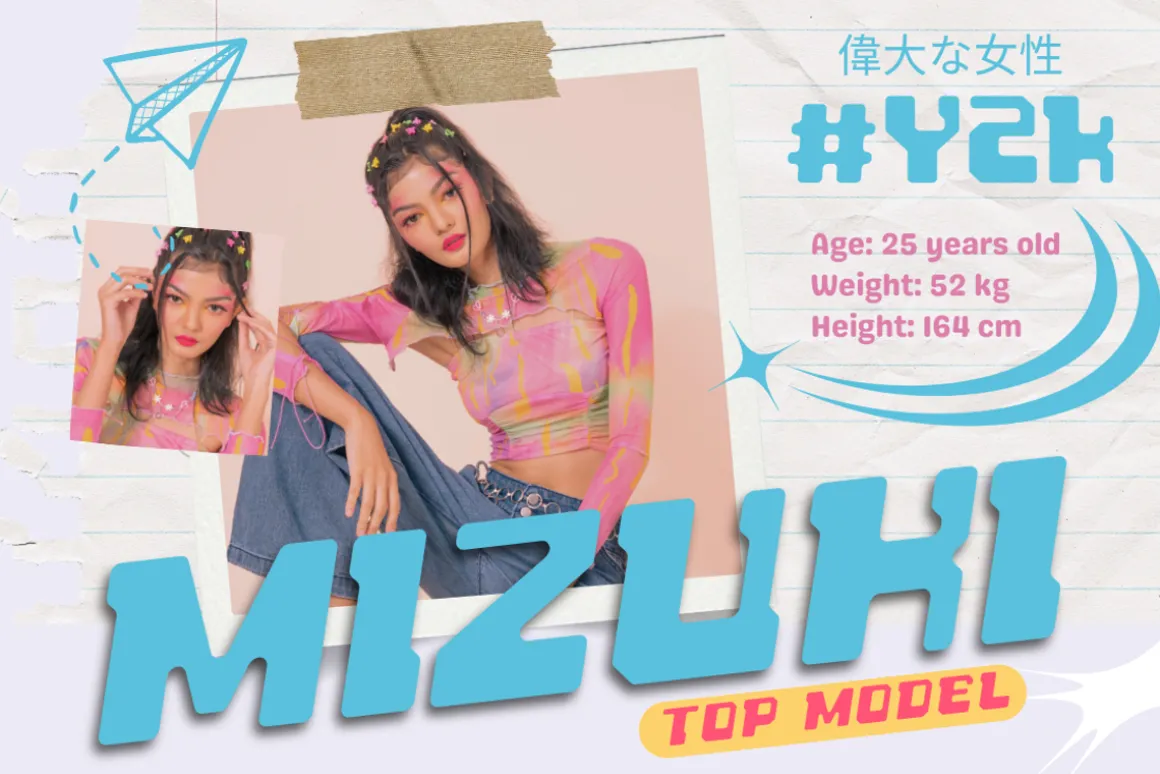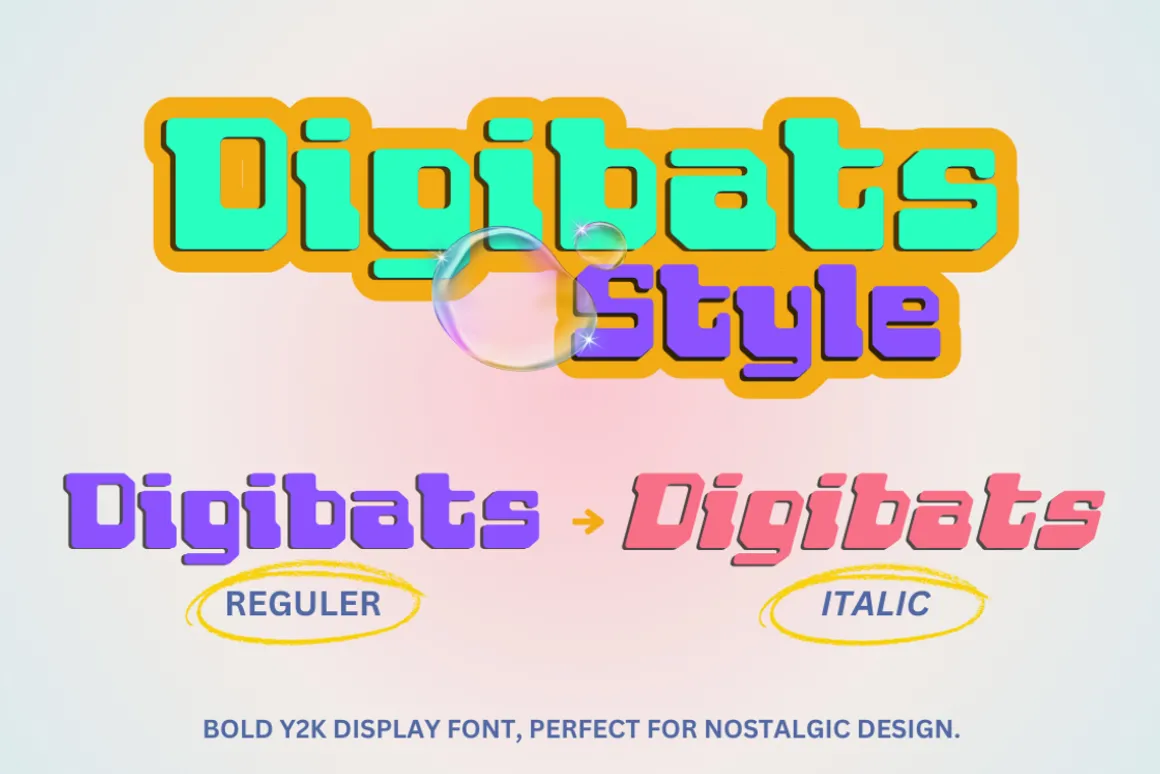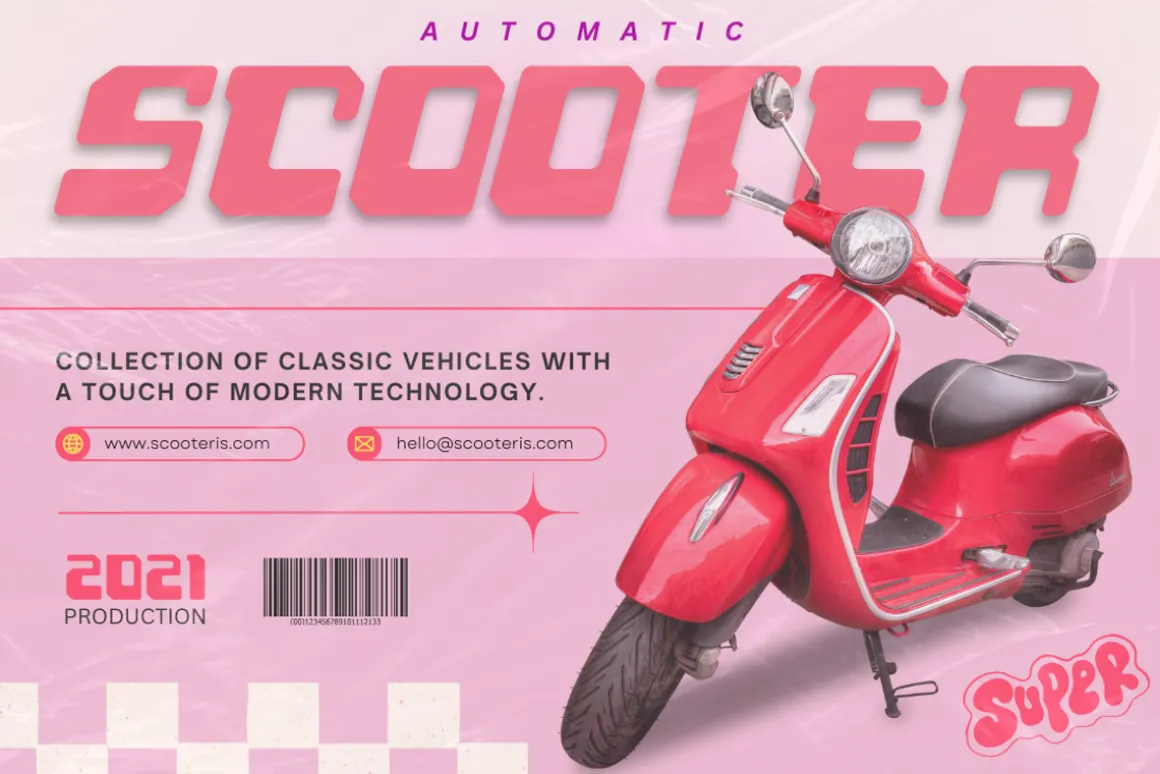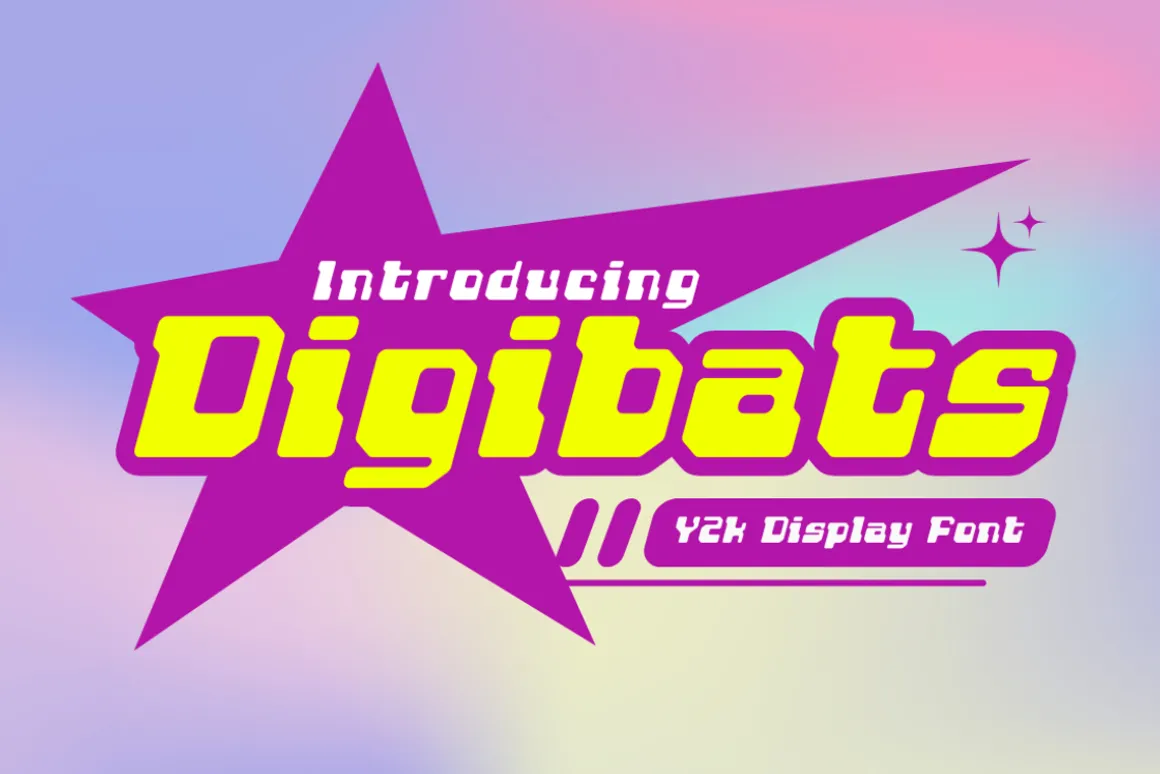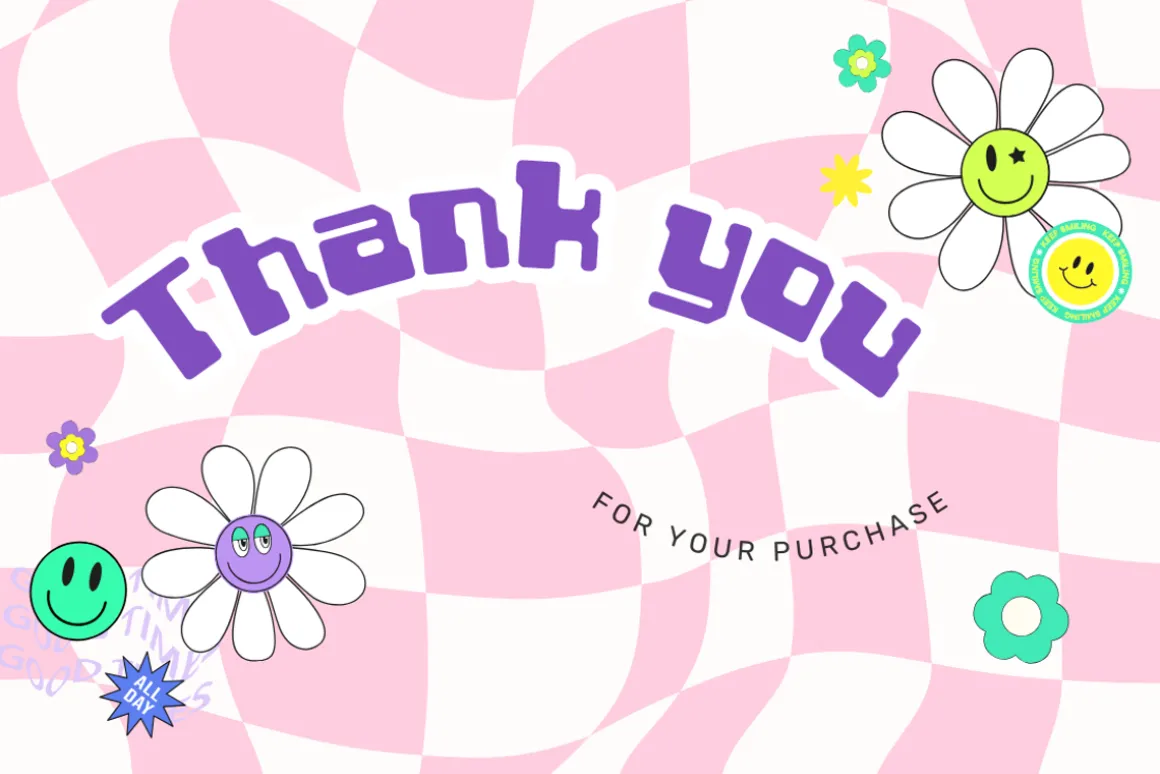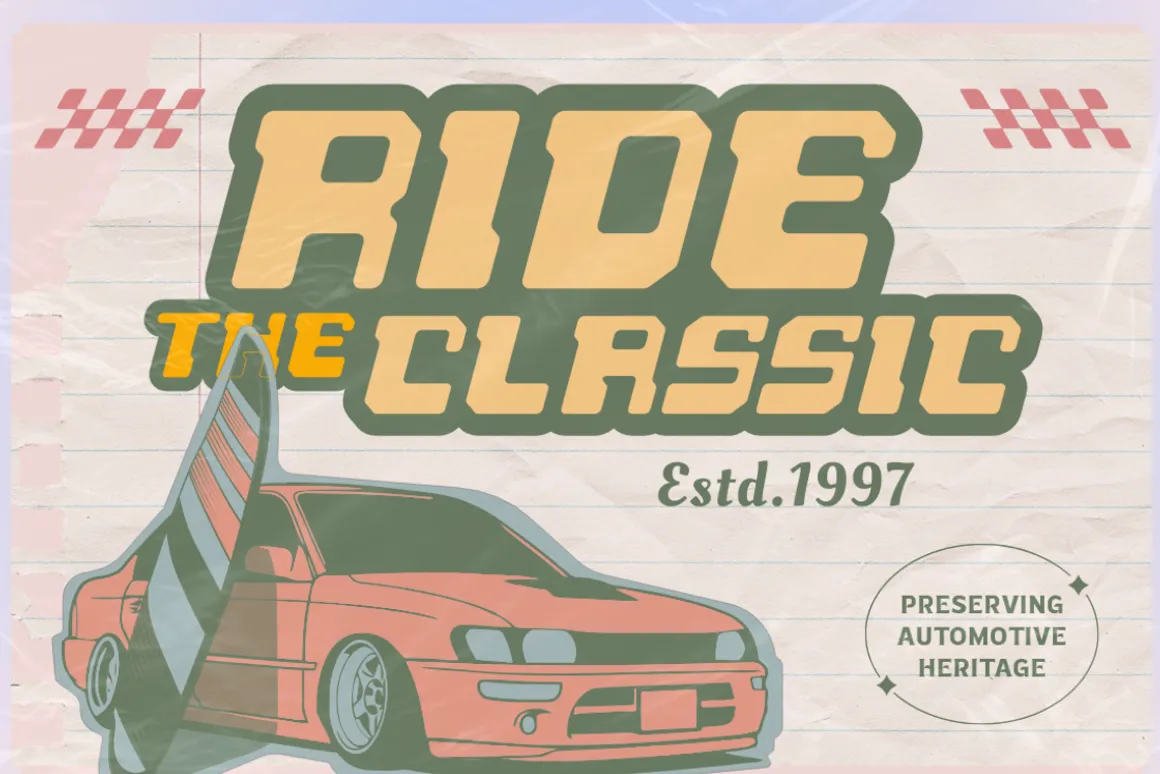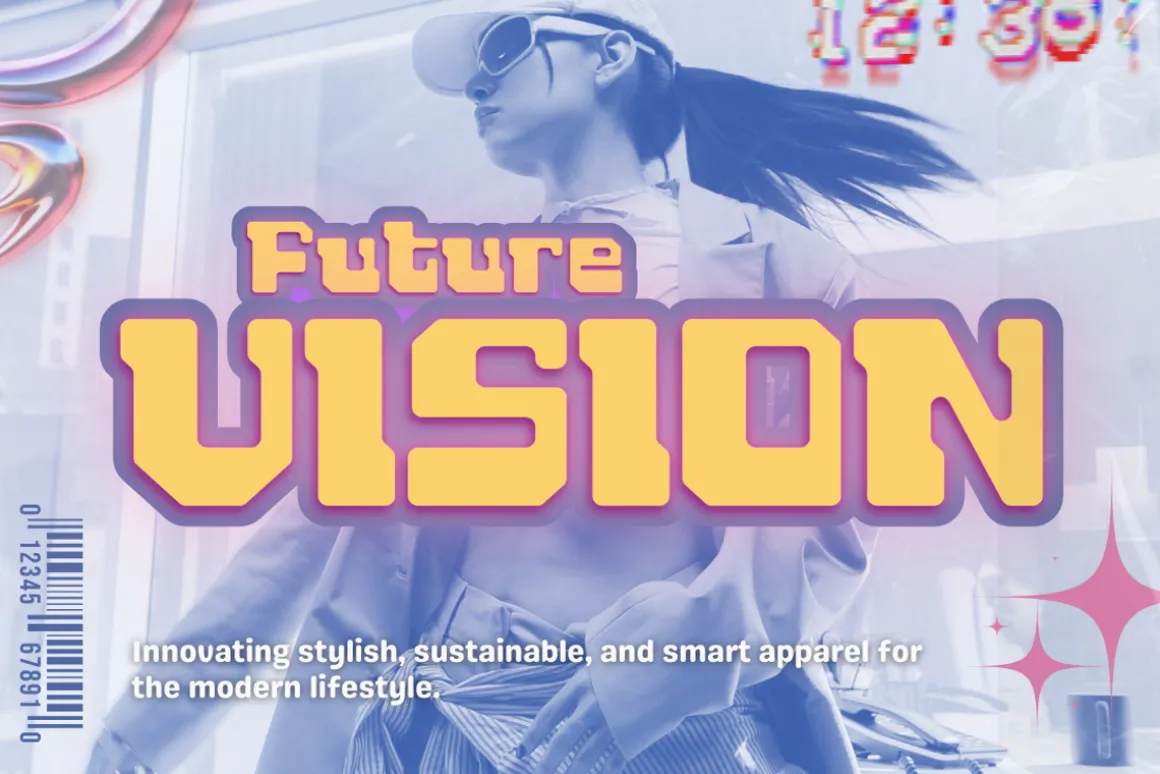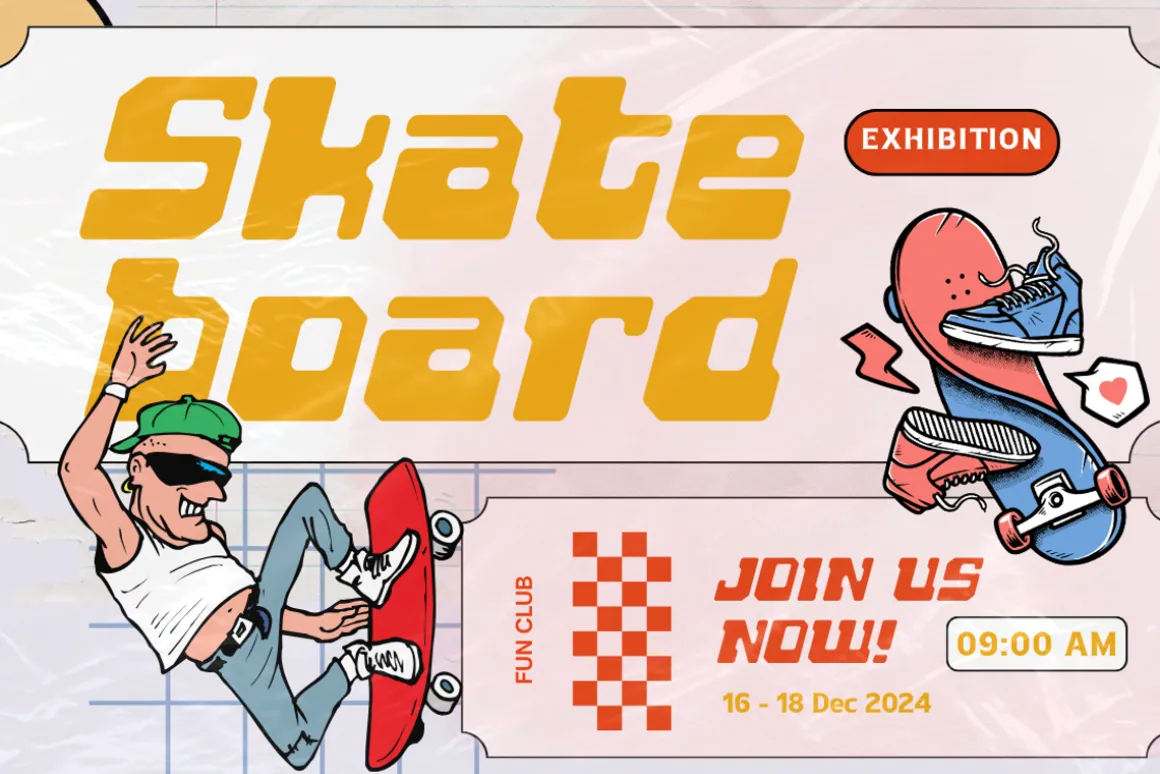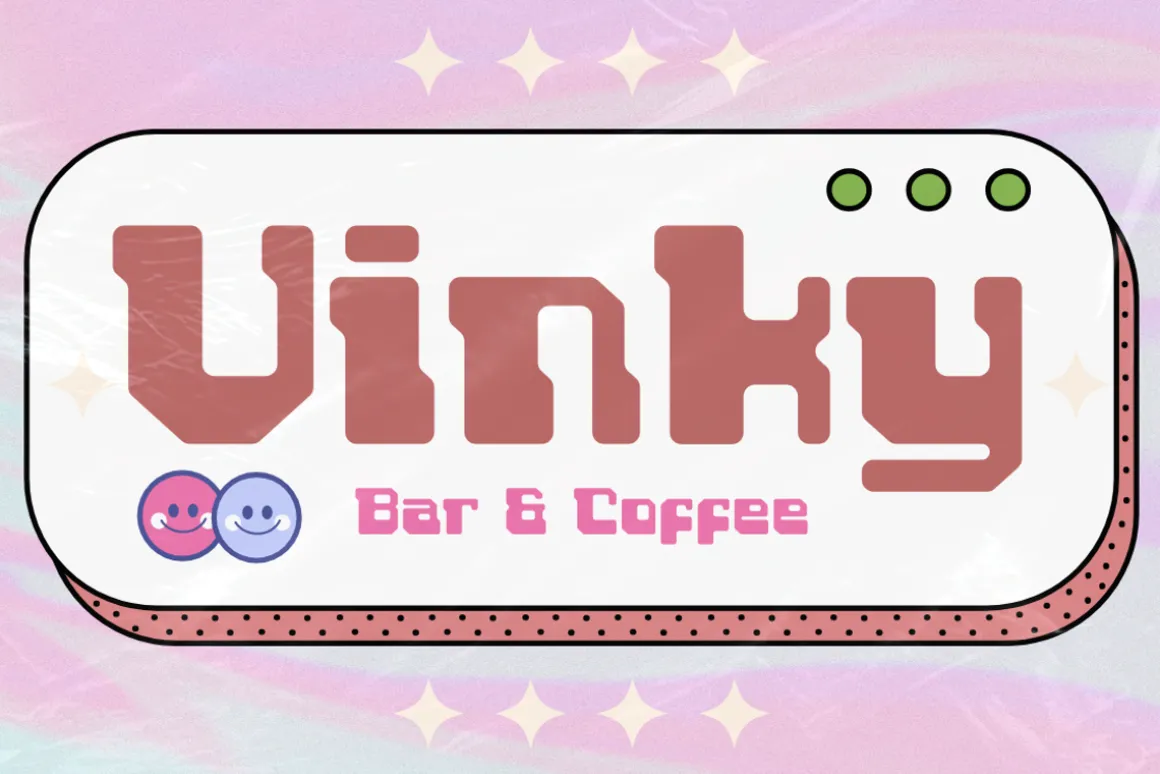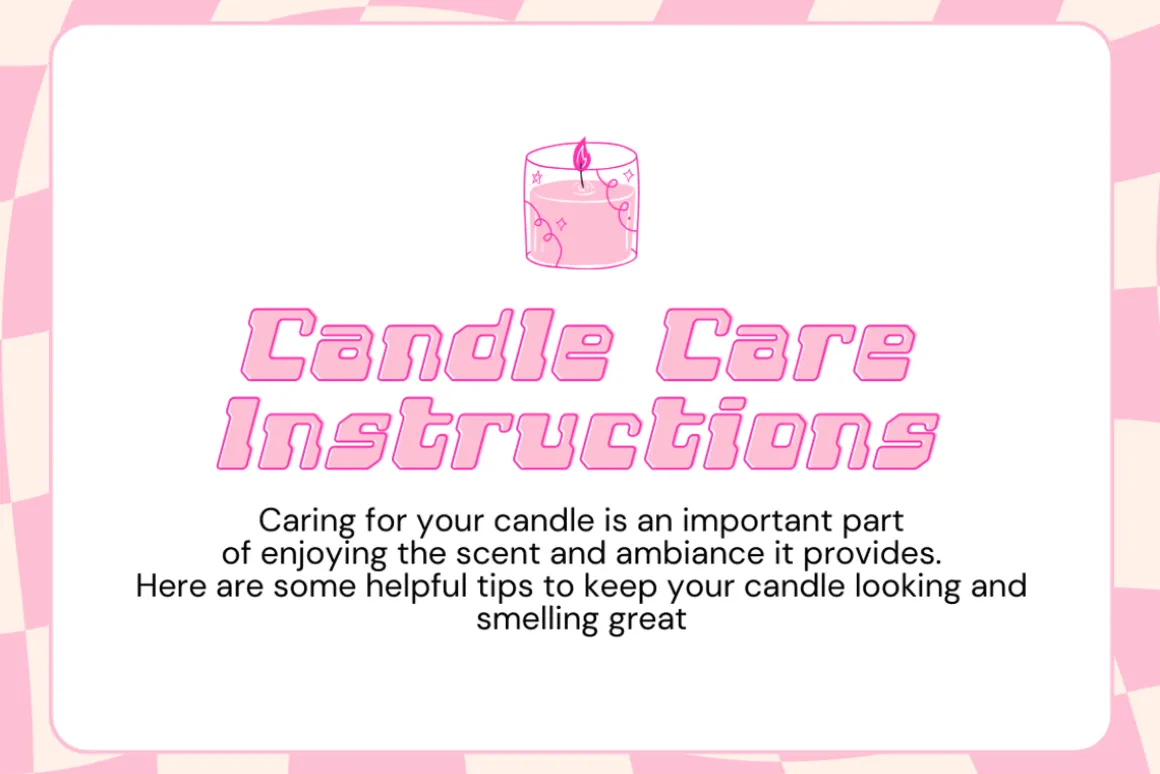
Introducing “Digibats,” a striking Y2K-inspired display font that brings a retro vibe to your designs. With its bold, nostalgic aesthetic, “Digibats” is perfect for making a statement. Available in two styles: Regular and Italic, this font offers the versatility you need to capture the essence of the early 2000s in your projects. Whether for posters, logos, or digital content, “Digibats” will infuse your work with a distinctive, retro flair.
- Regular & Italic Version
- Numeral & Punctuation
- Multilingual support